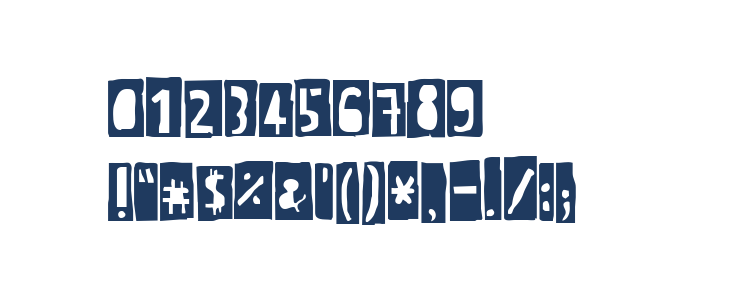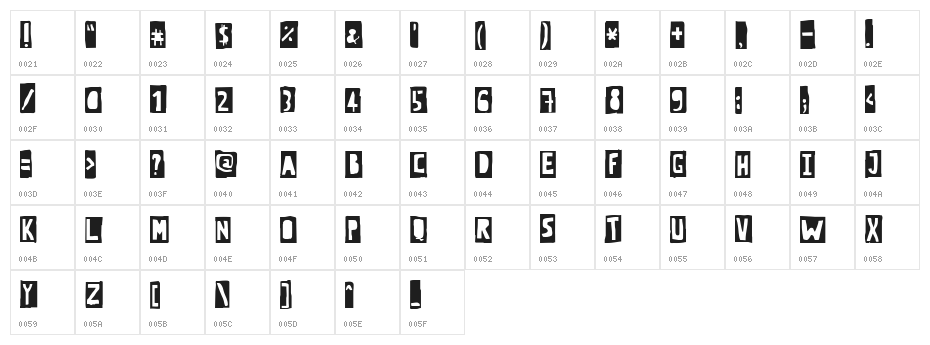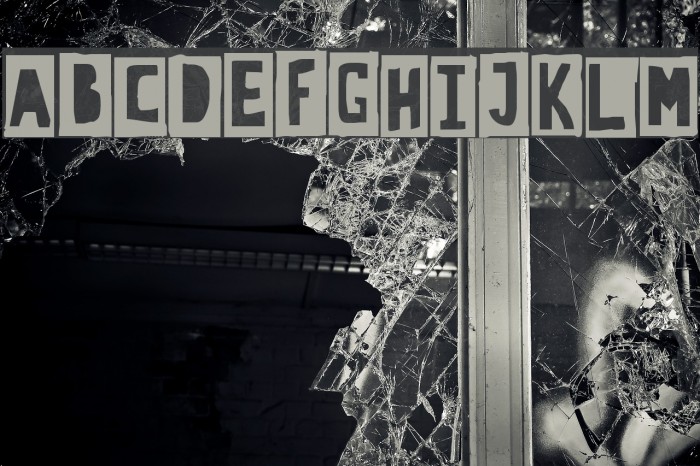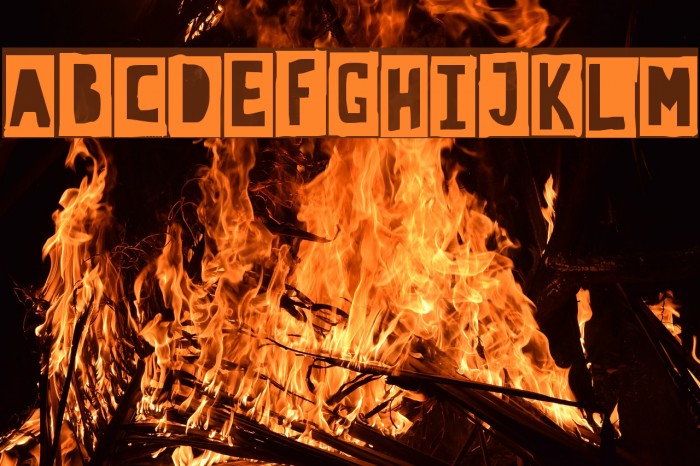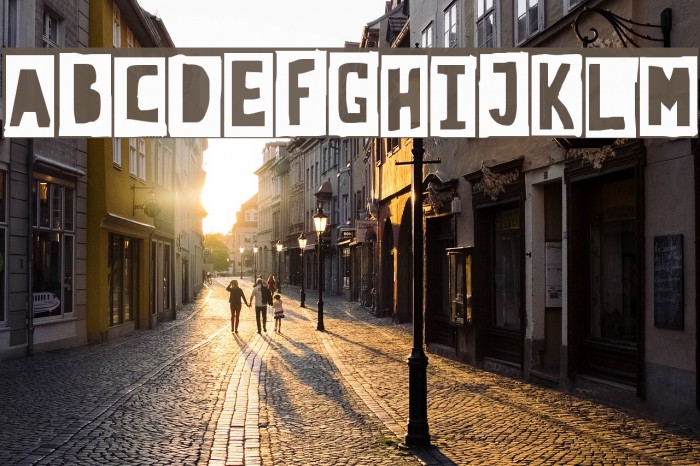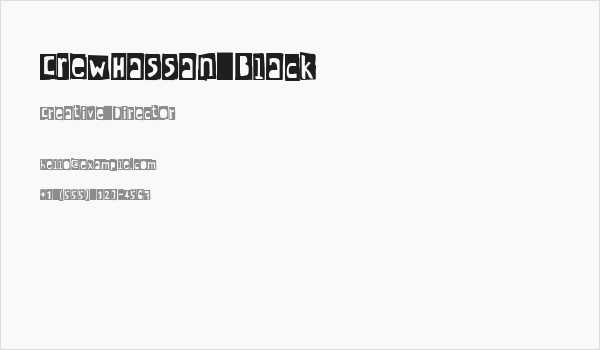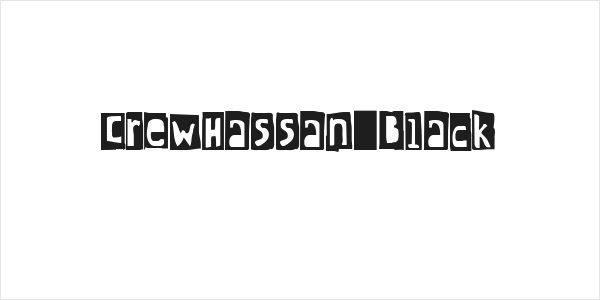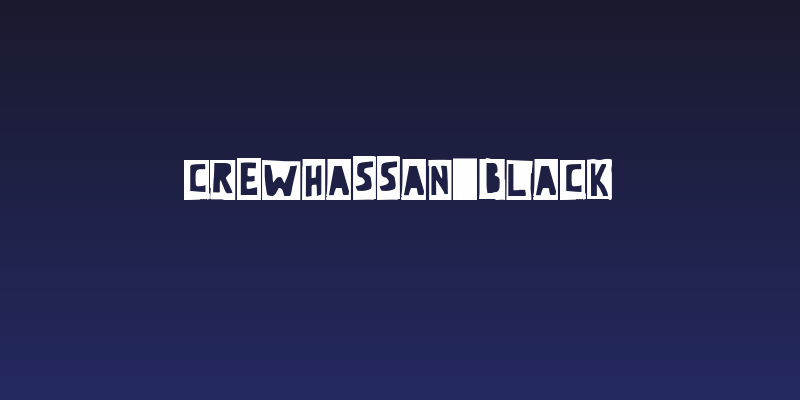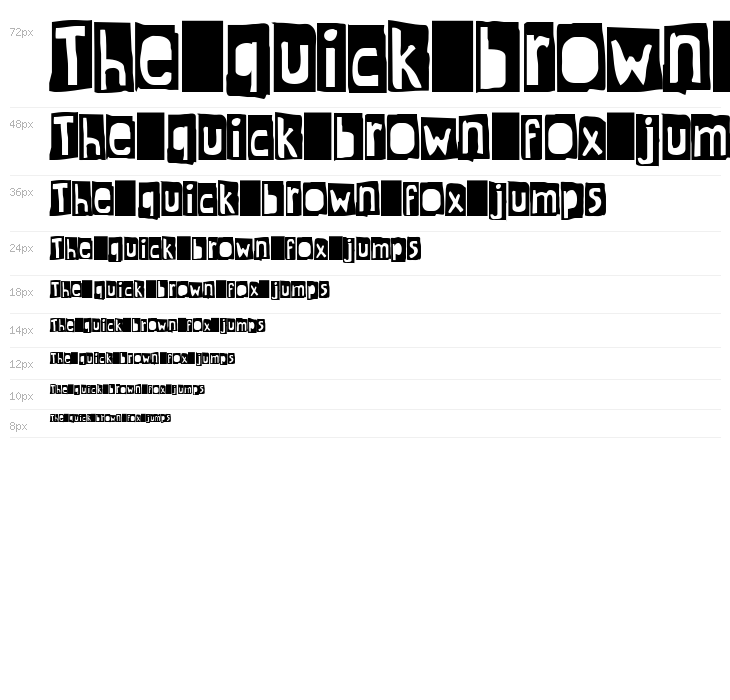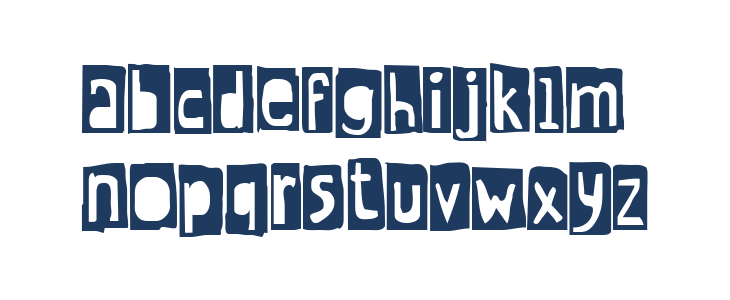
CrewHassan Black Font
CrewHassan Black Description
This font features a bold and dynamic style, characterized by its blocky and irregular shapes. Each character is enclosed in a solid black rectangle, giving it a distinct and impactful appearance. The letters have a hand-cut, stencil-like quality, with varying widths and heights that create a sense of movement and energy. The uppercase and lowercase letters maintain a consistent style, while the numbers and special characters follow the same bold and expressive design. This font's unique and artistic look makes it suitable for projects that require a strong visual statement.
| Proposed Projects | Ideal for posters, album covers, street art, and branding that requires a bold and artistic touch. |